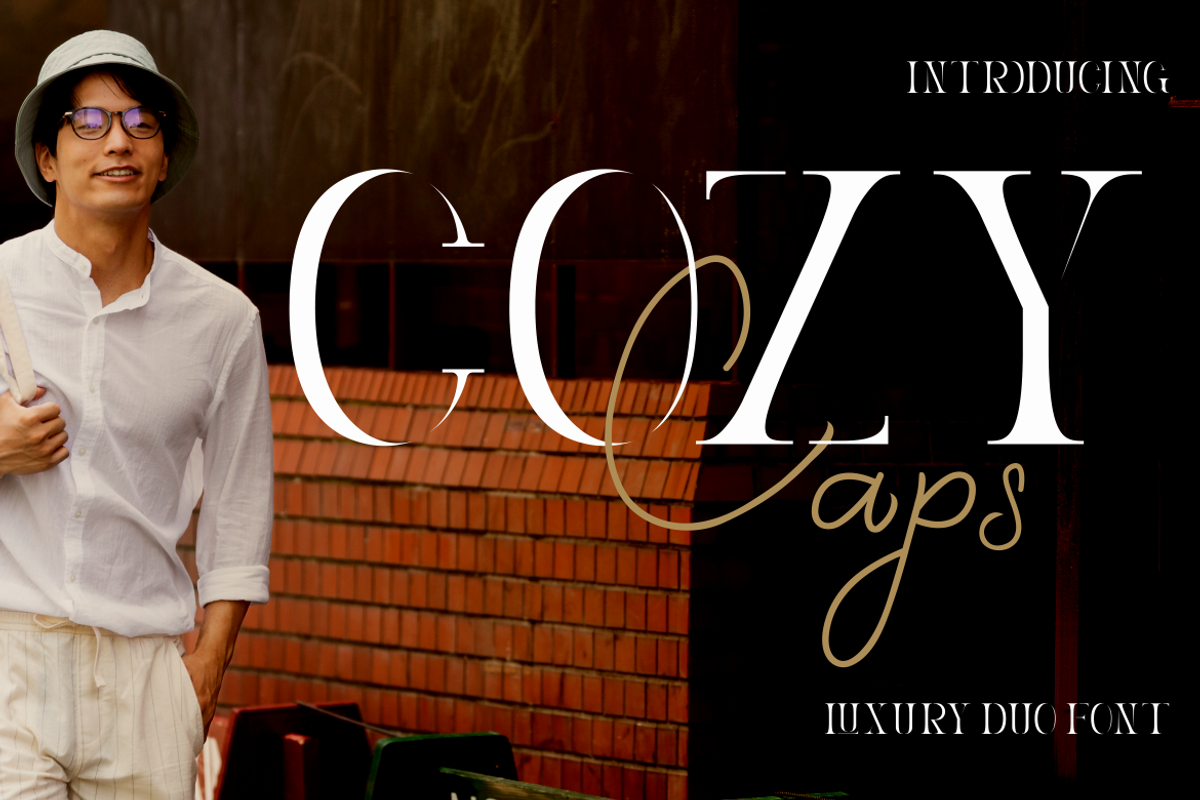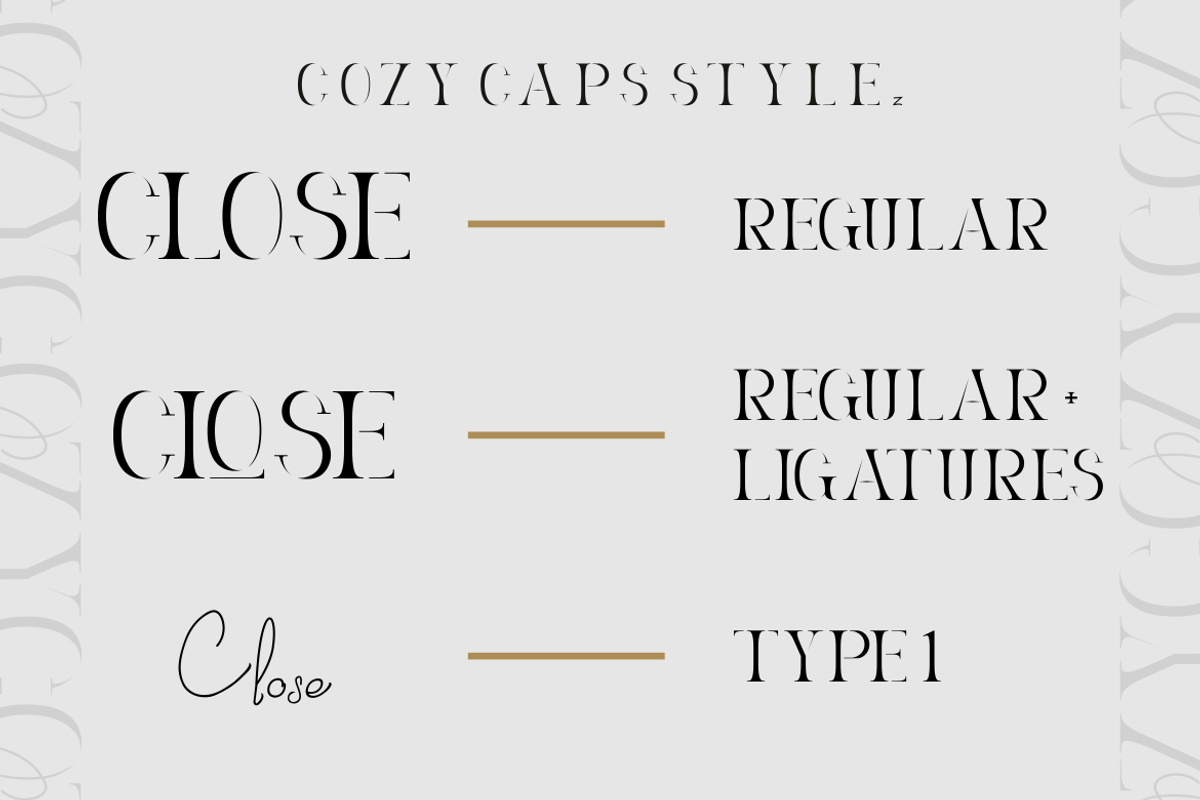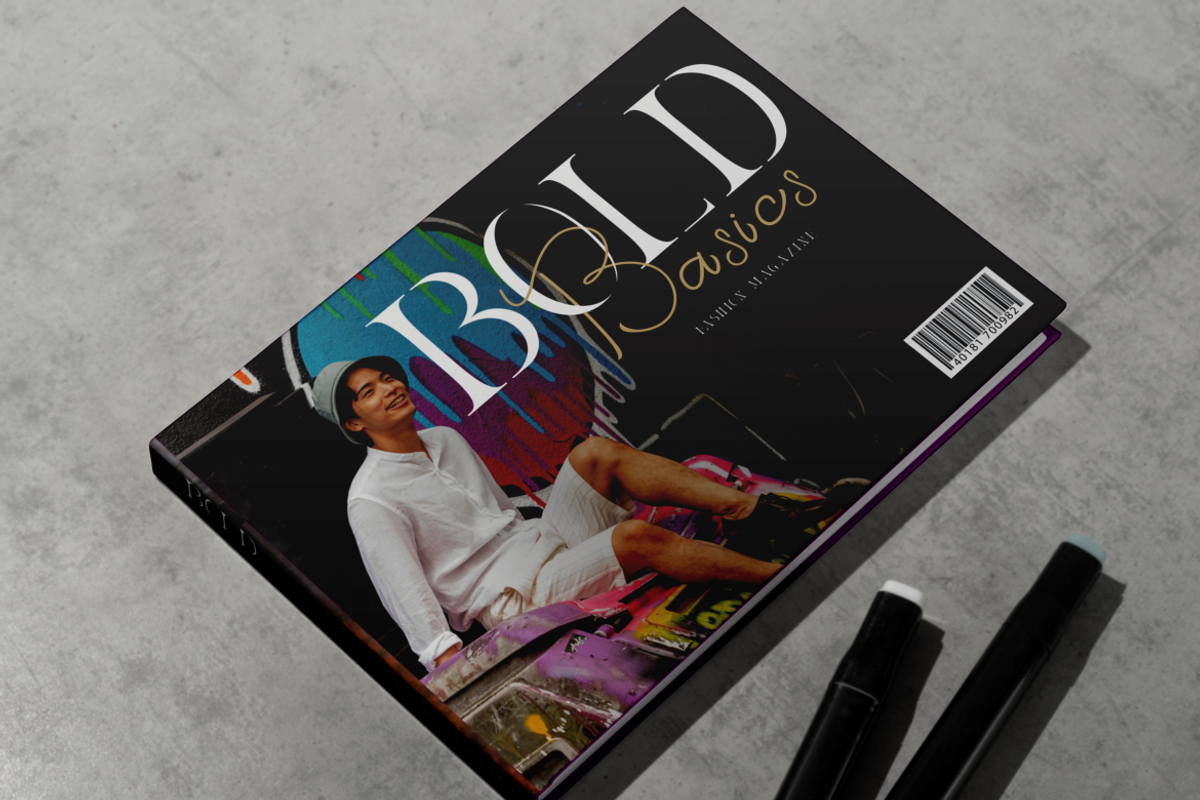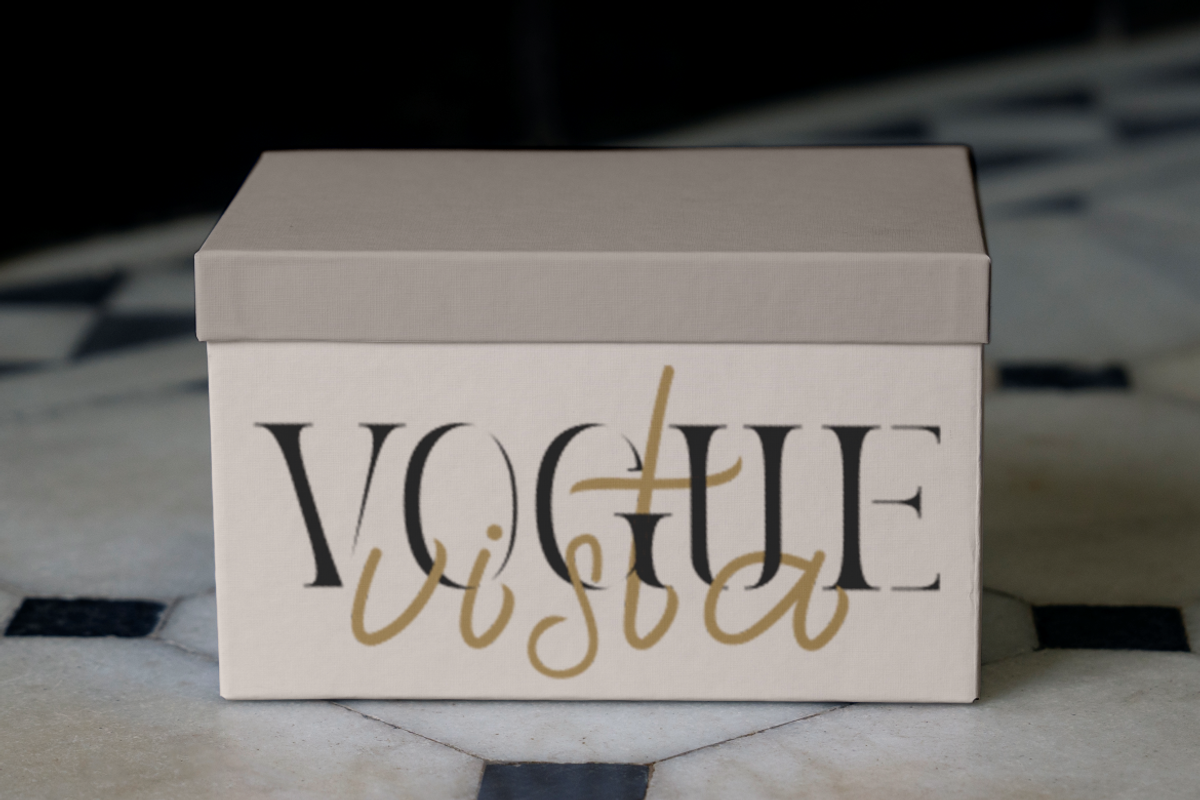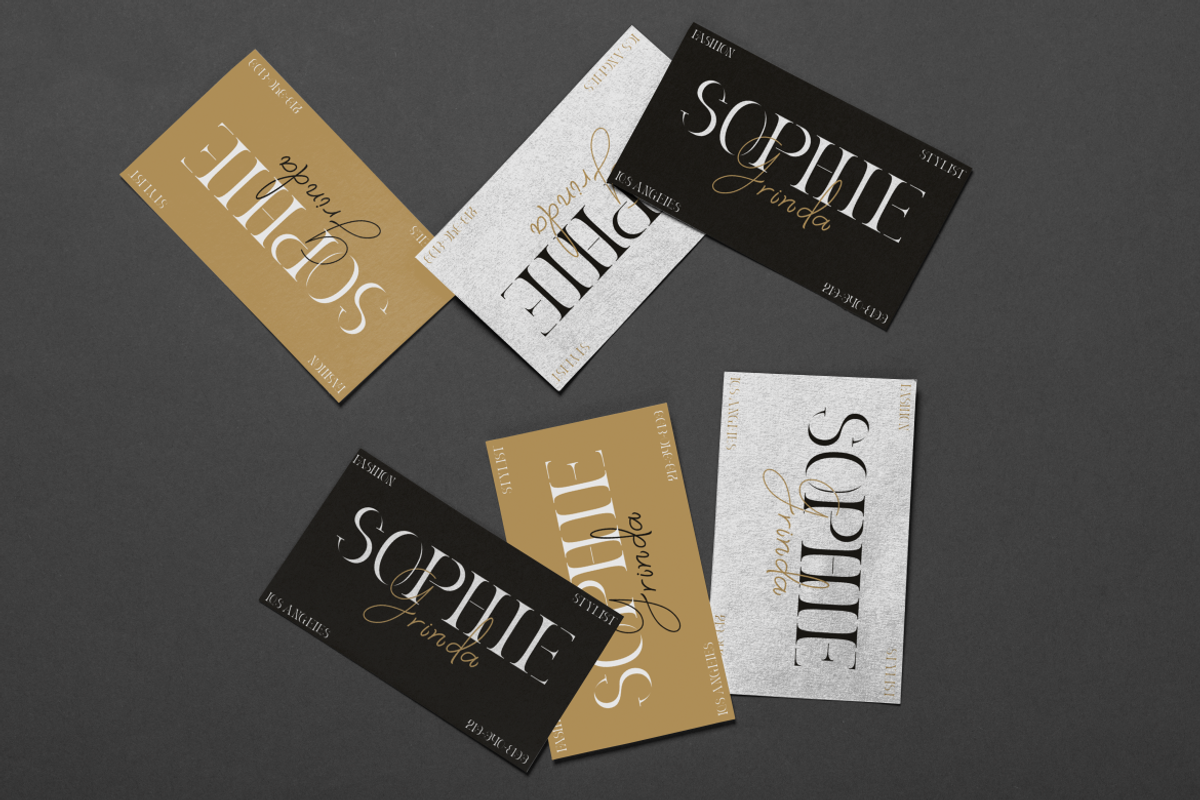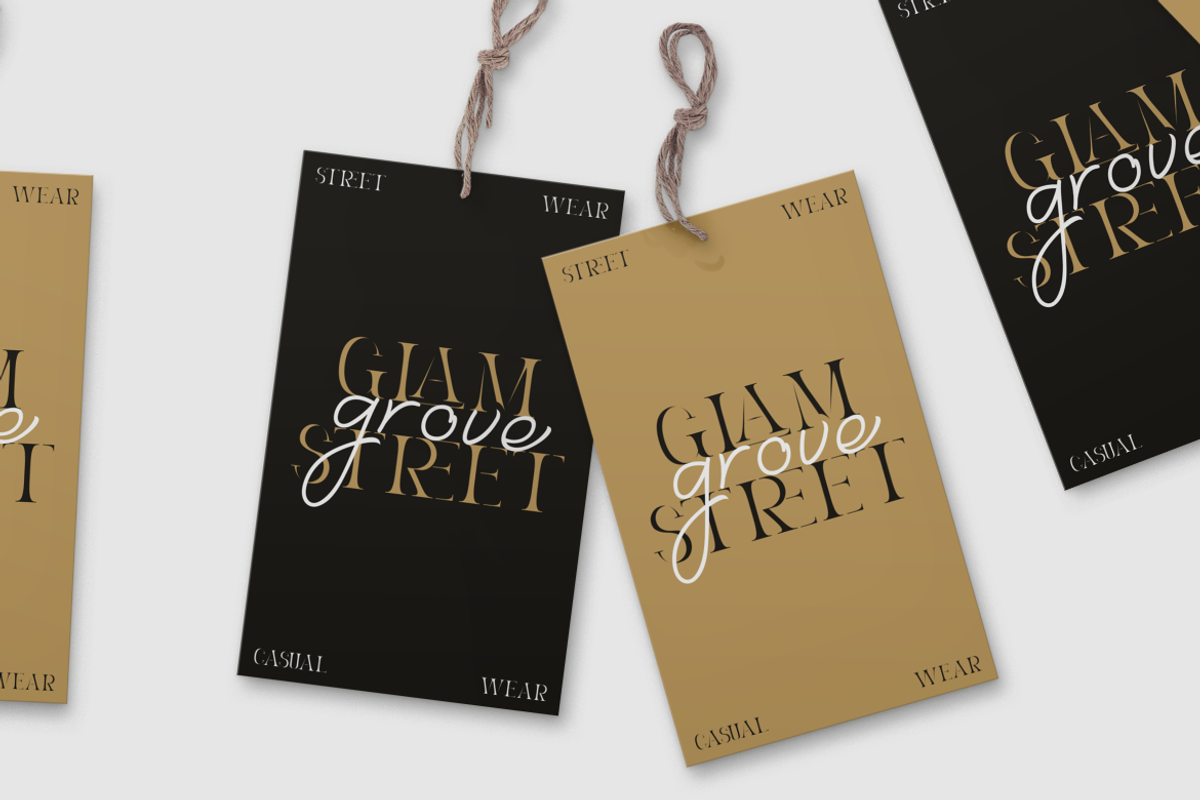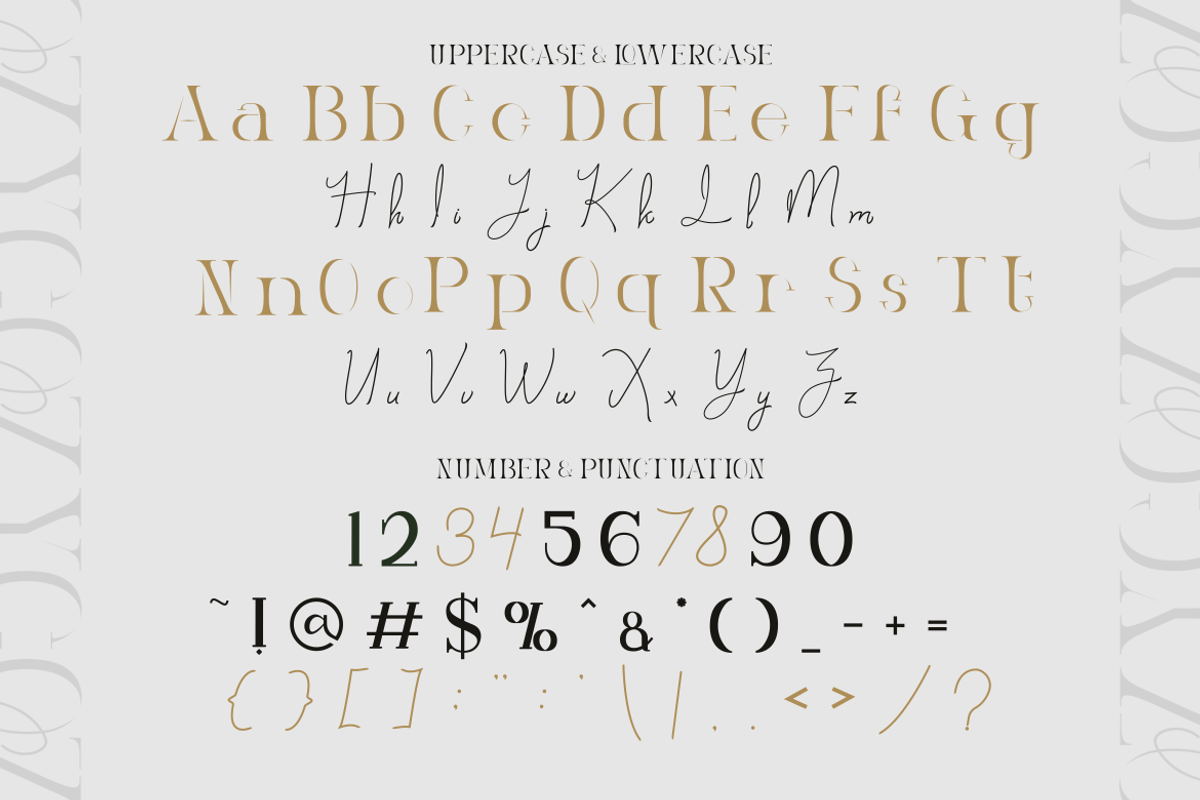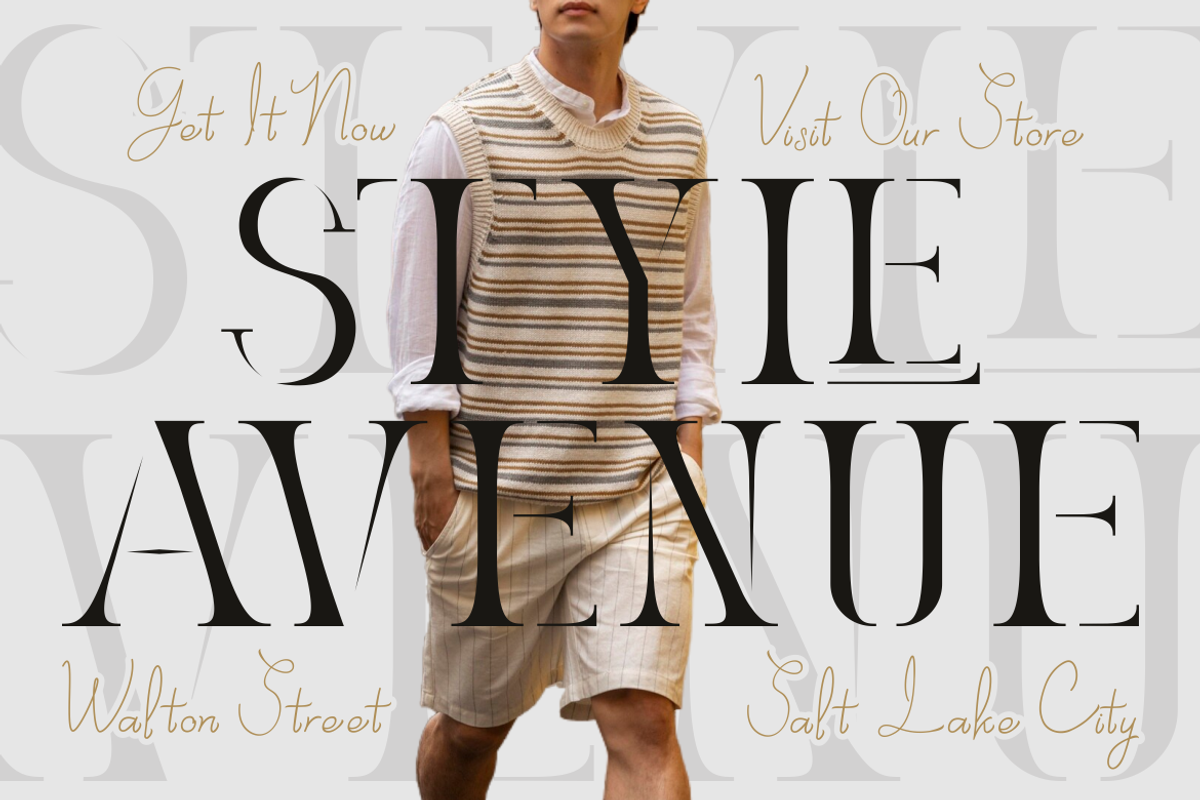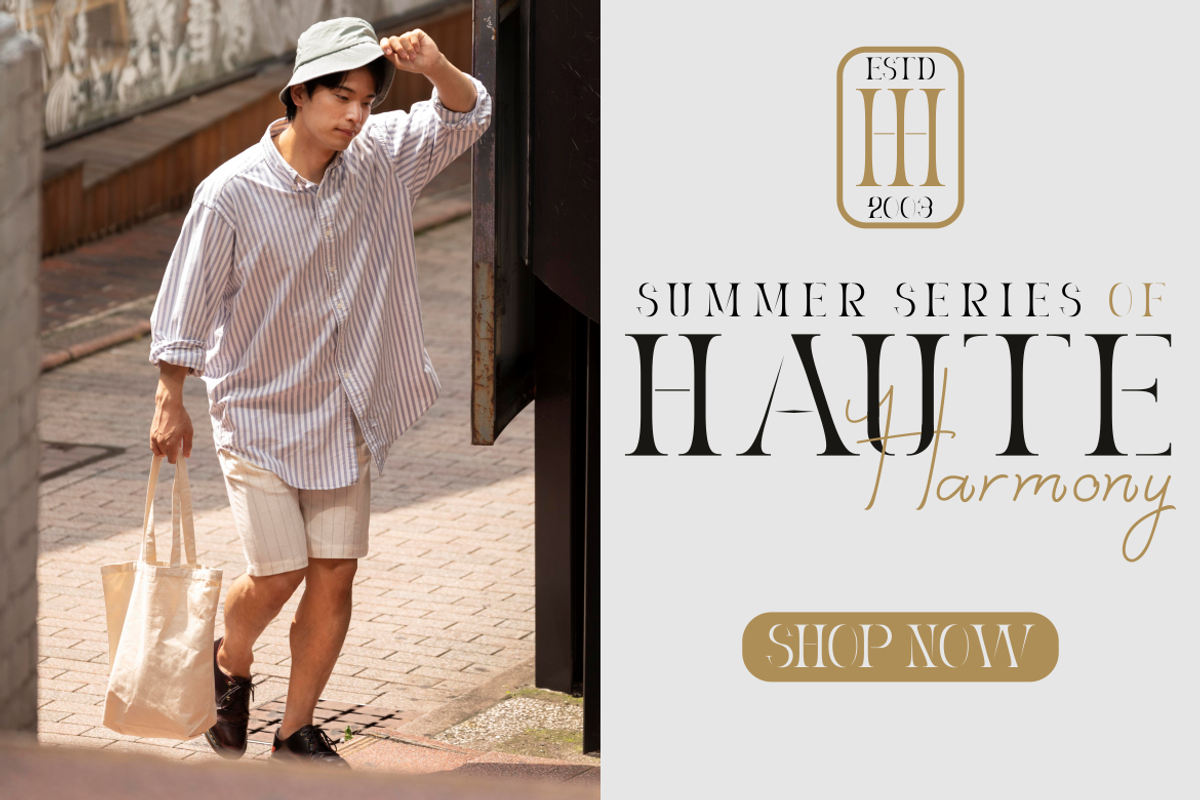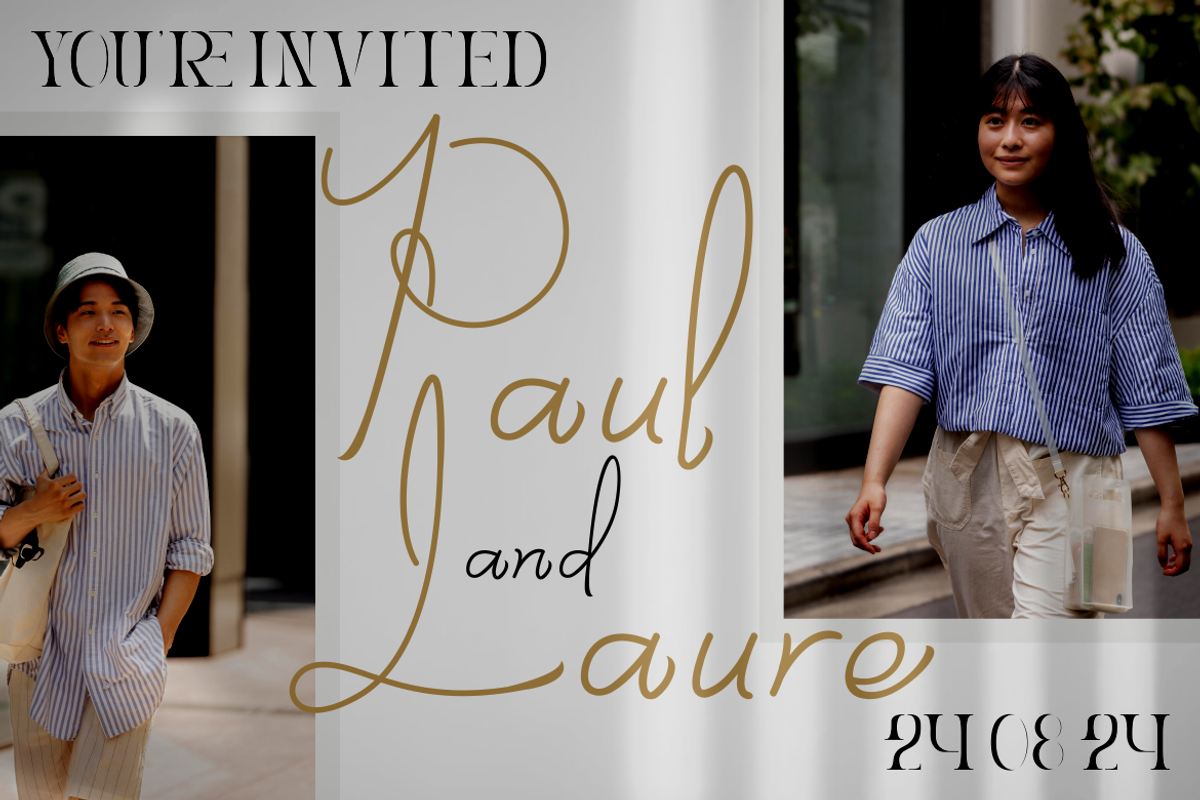
Cozy Caps - Luxury Duo Font
Introducing Cozy Caps, a refined luxury duo font that brings an exquisite touch to your designs. This elegant combination of a sophisticated serif and a smooth script gives your work the perfect balance of luxury and charm. Whether you're crafting logos, invitations, or branding materials, Cozy Caps elevates your design with its timeless elegance. The serif font exudes confidence and boldness, while the script font adds a touch of warmth and personal flair, creating an ideal harmony for upscale projects.
Perfect for a wide range of applications, Cozy Caps is especially suited for luxury branding, high-end packaging, and professional business identities. It’s equally versatile for more creative uses like magazine covers, book titles, or stylish greeting cards. With its sophisticated aesthetic, this font duo adds a classic yet modern twist to any project, ensuring your designs stand out with style and elegance. Elevate your visual projects with the graceful beauty of Cozy Caps and leave a lasting impression on your audience.